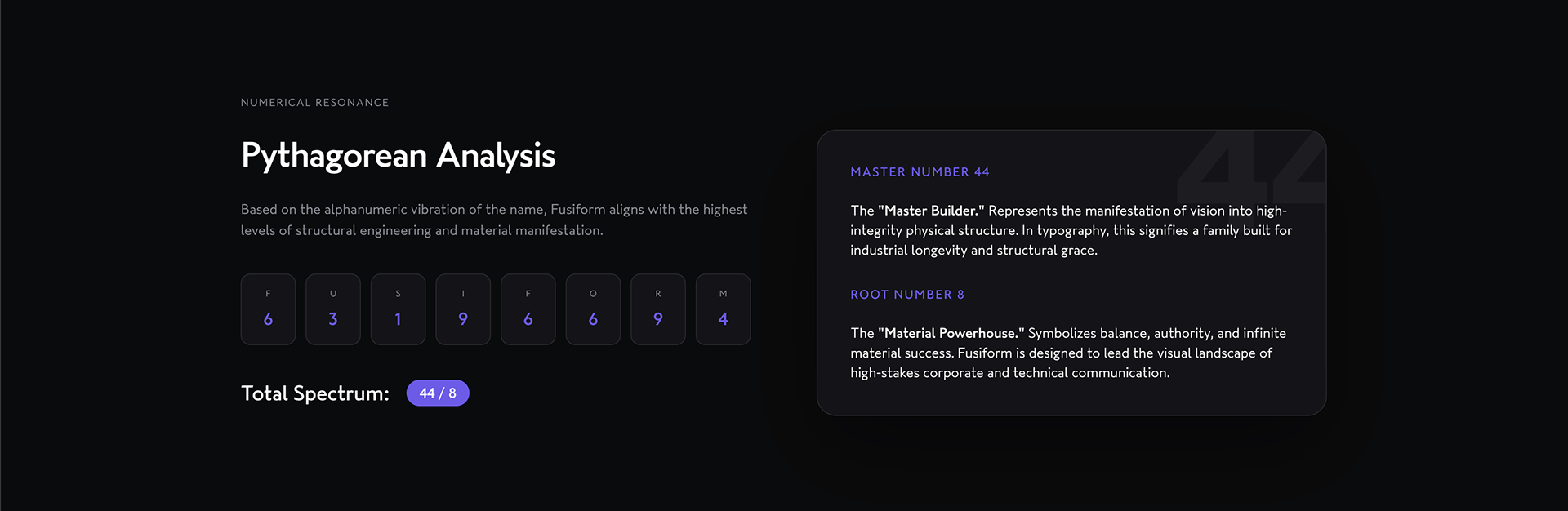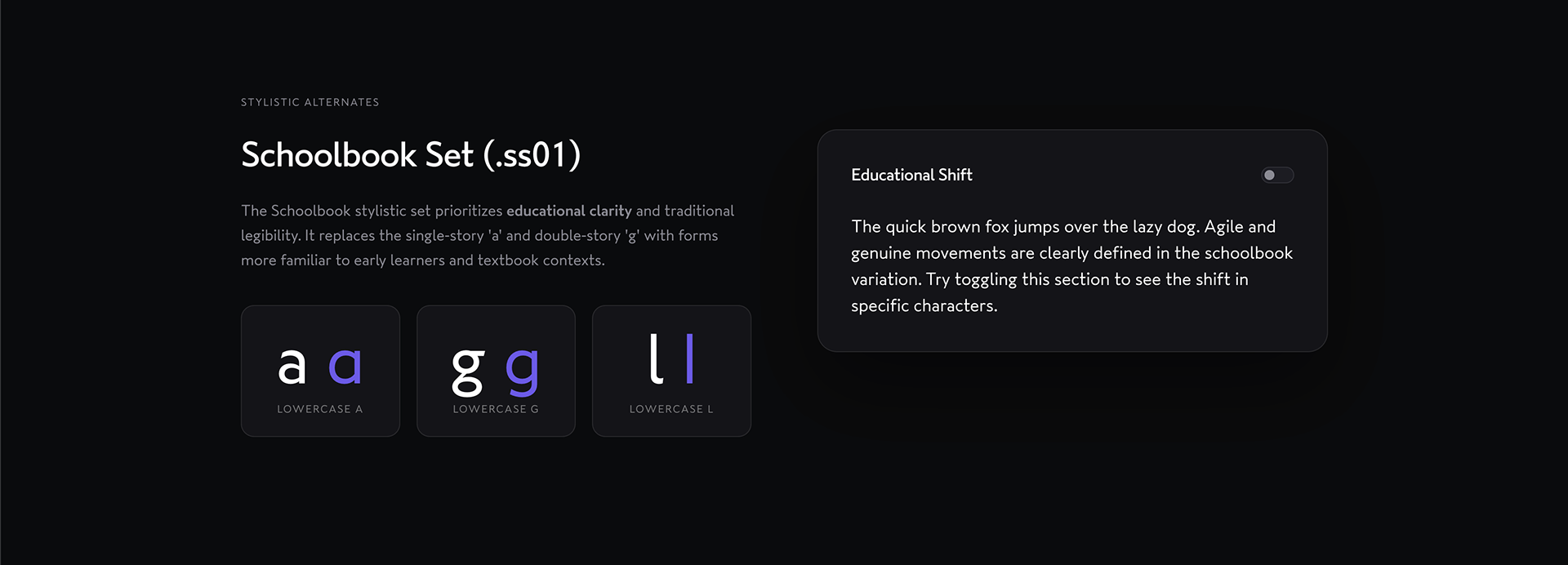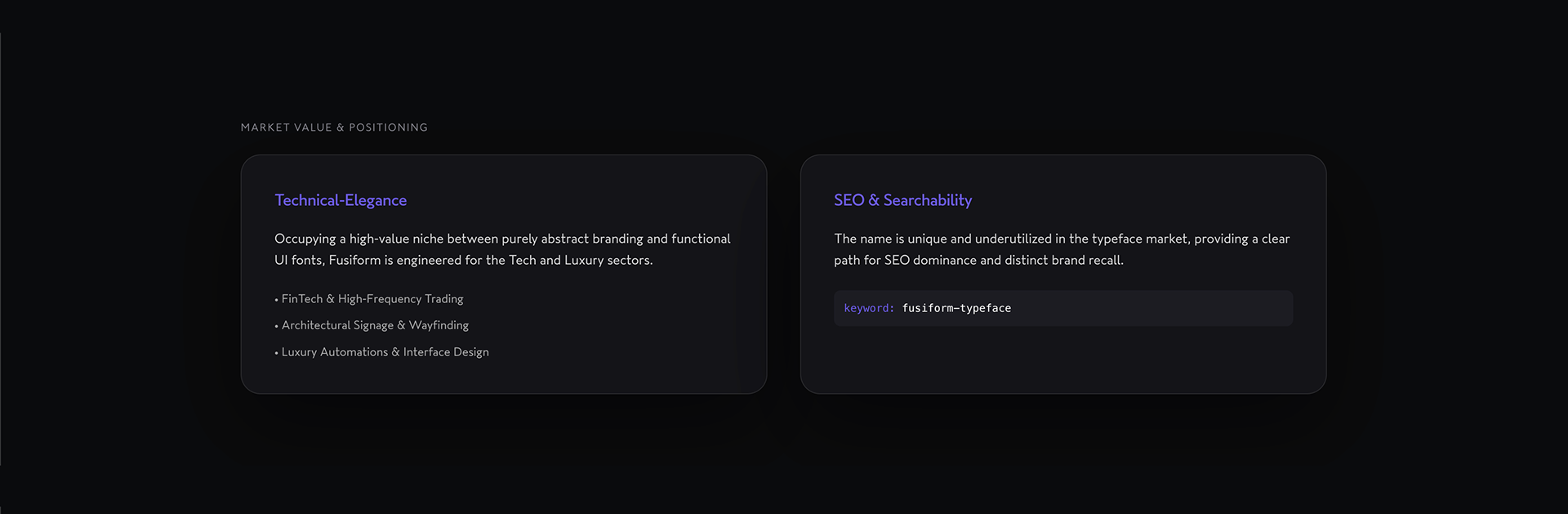
The name "Fusiform" serves as a dual-purpose signifier, bridging scientific precision with artisanal craft.
Fusiform (Fusion-Form) is not merely a font; it is a structural dialogue. Guided by the theme "A geometric heart with a humanist soul," the typeface reinforces its design philosophy by reminding the user that every geometric curve has a beginning, a middle, and an end—a spindle of energy that makes the typeface feel alive rather than mechanical.